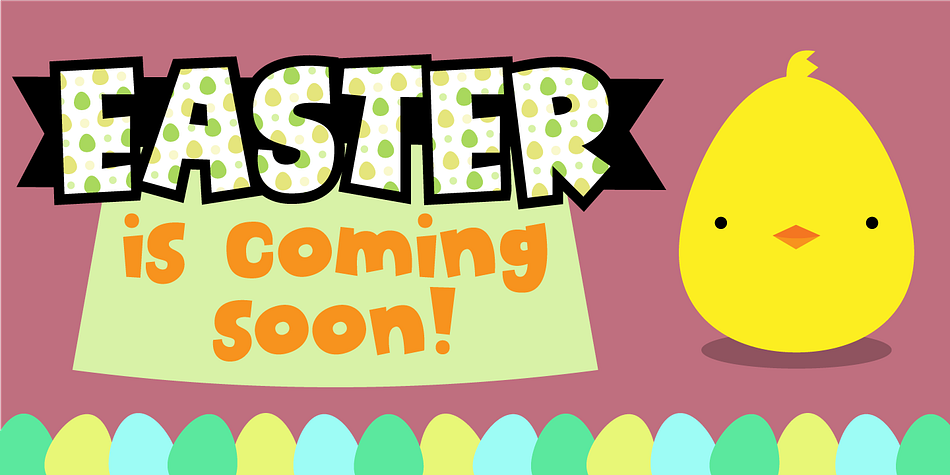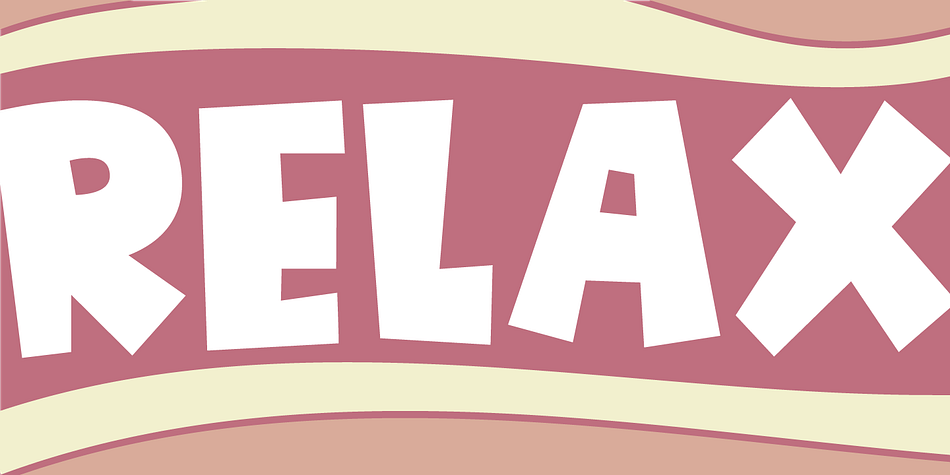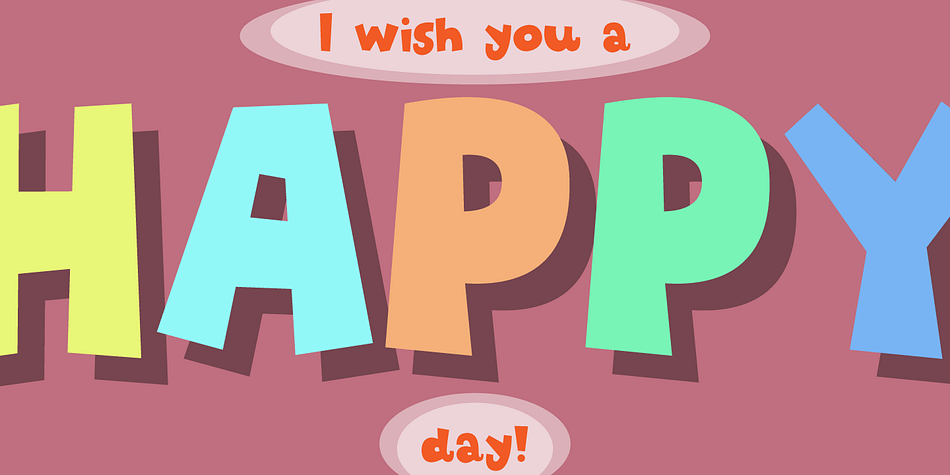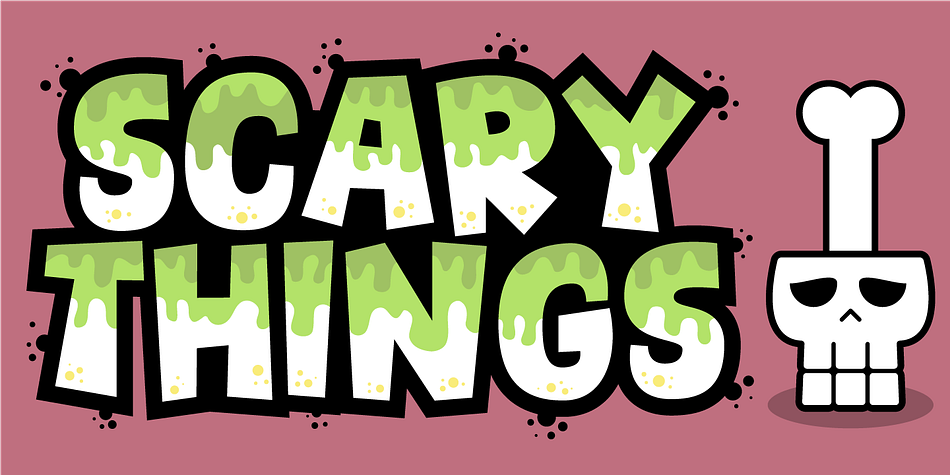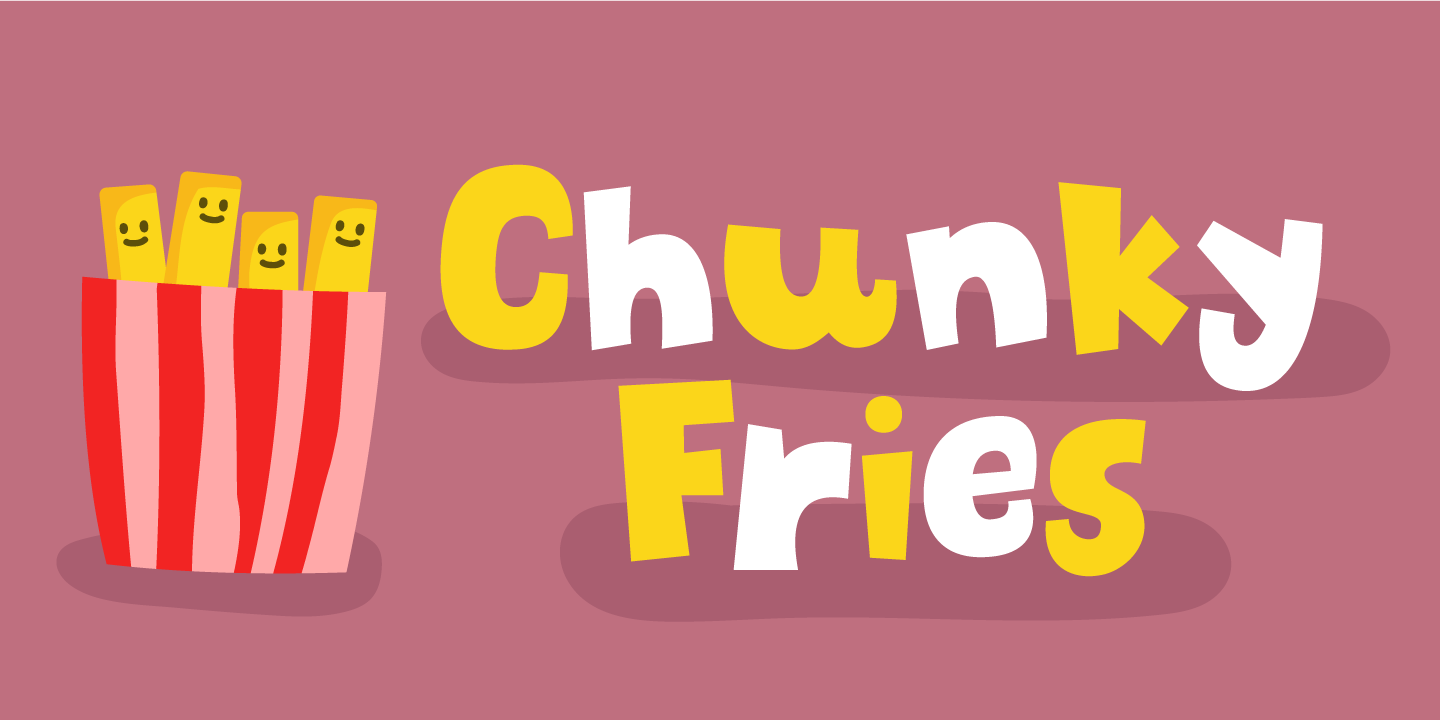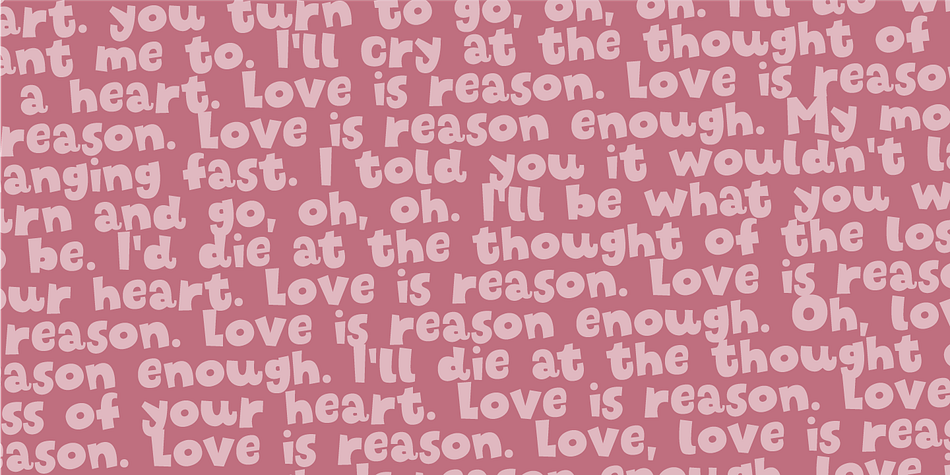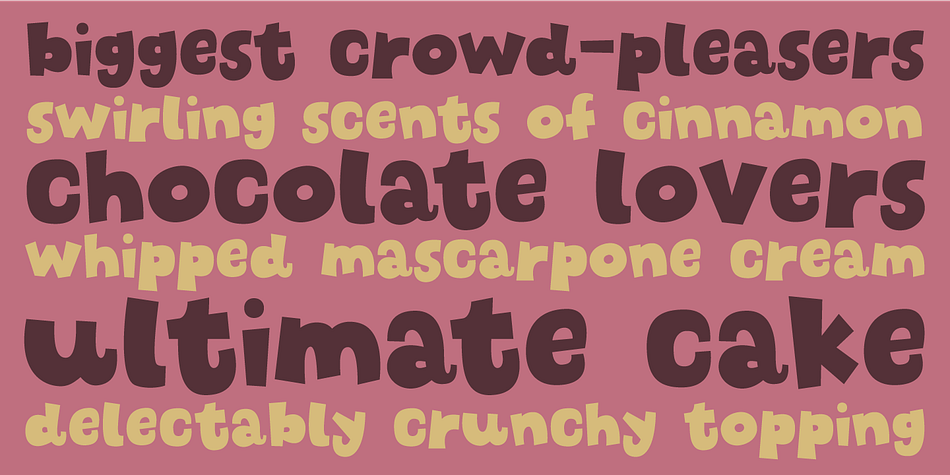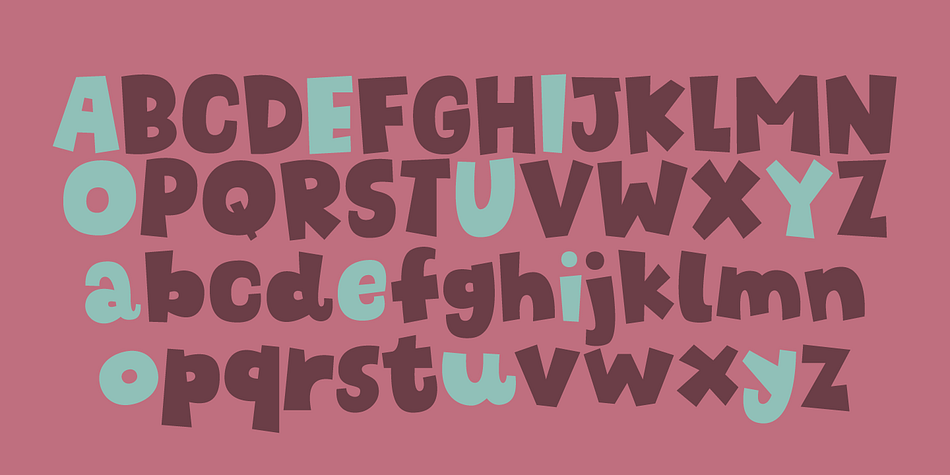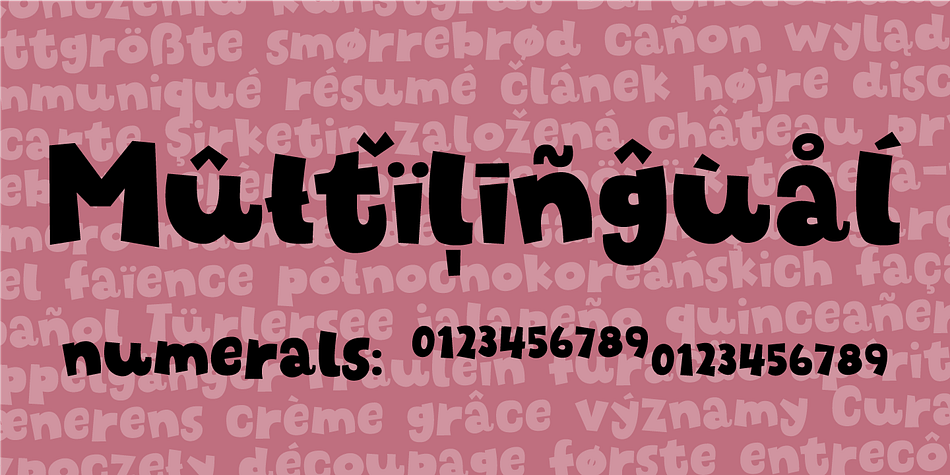
Chunky Fries
Designed by Jakob Fischer, Chunky Fries is a display sans and kids font family. This typeface has two styles and was published by Pizzadude.dk.
Chunky Fries is my incredibly smooth and handsome comic font! Charming and delightful without overdoing it, and useful for most occasions, but mostly for something that needs a sparkle of funky business!